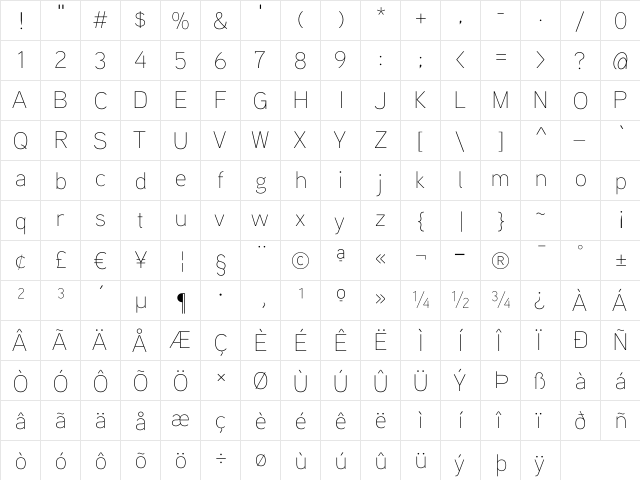
Aaux ProThin Regular
Design Context for Aaux ProThin Typeface
Aaux ProThin offers clean, dependable letterforms without strong stylistic allegiance, making it a practical choice for designers who need flexibility. Its slender proportions lend an understated elegance to any composition.